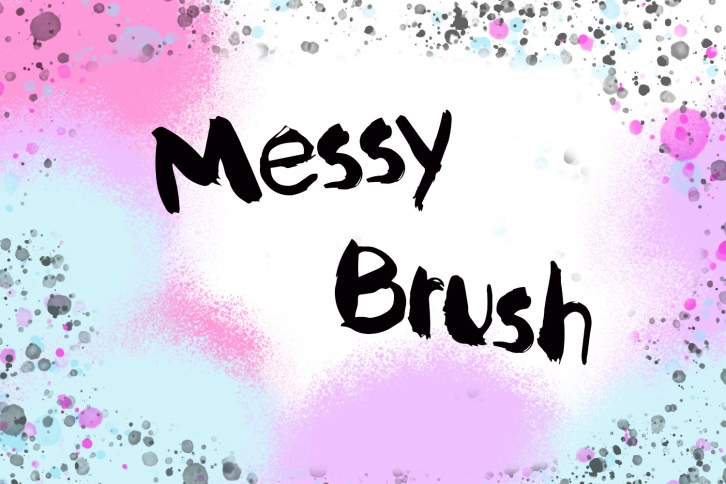
Messy Brush was created by using a watercolor brushed pen. Each letter was designed with a free stroke which makes this font adaptable and with the ability to fit in many formats. You can use this display font for an edgy design such as rock concerts, outdoor ATV posters, or in pretty much any creation that requires a stronger vibe.